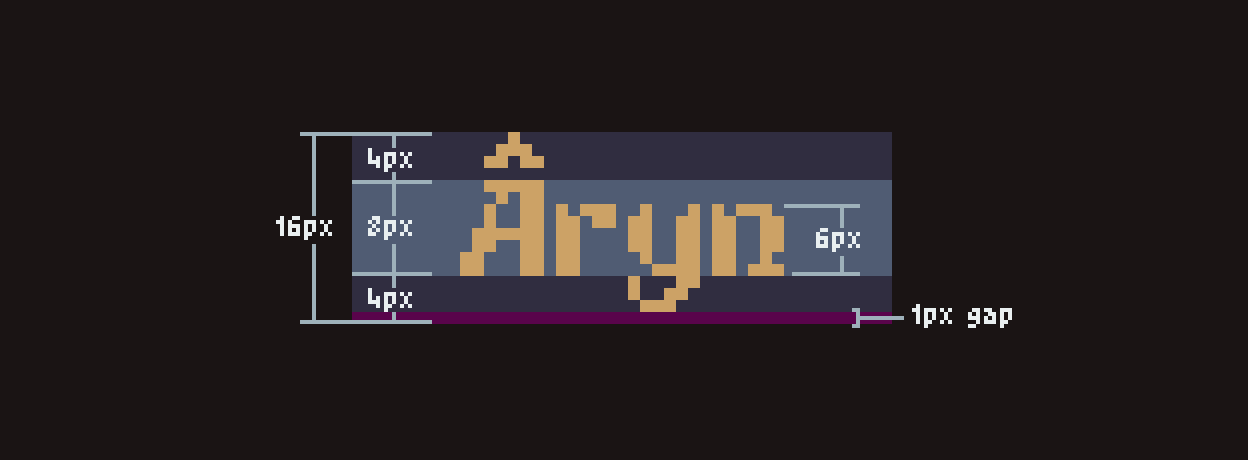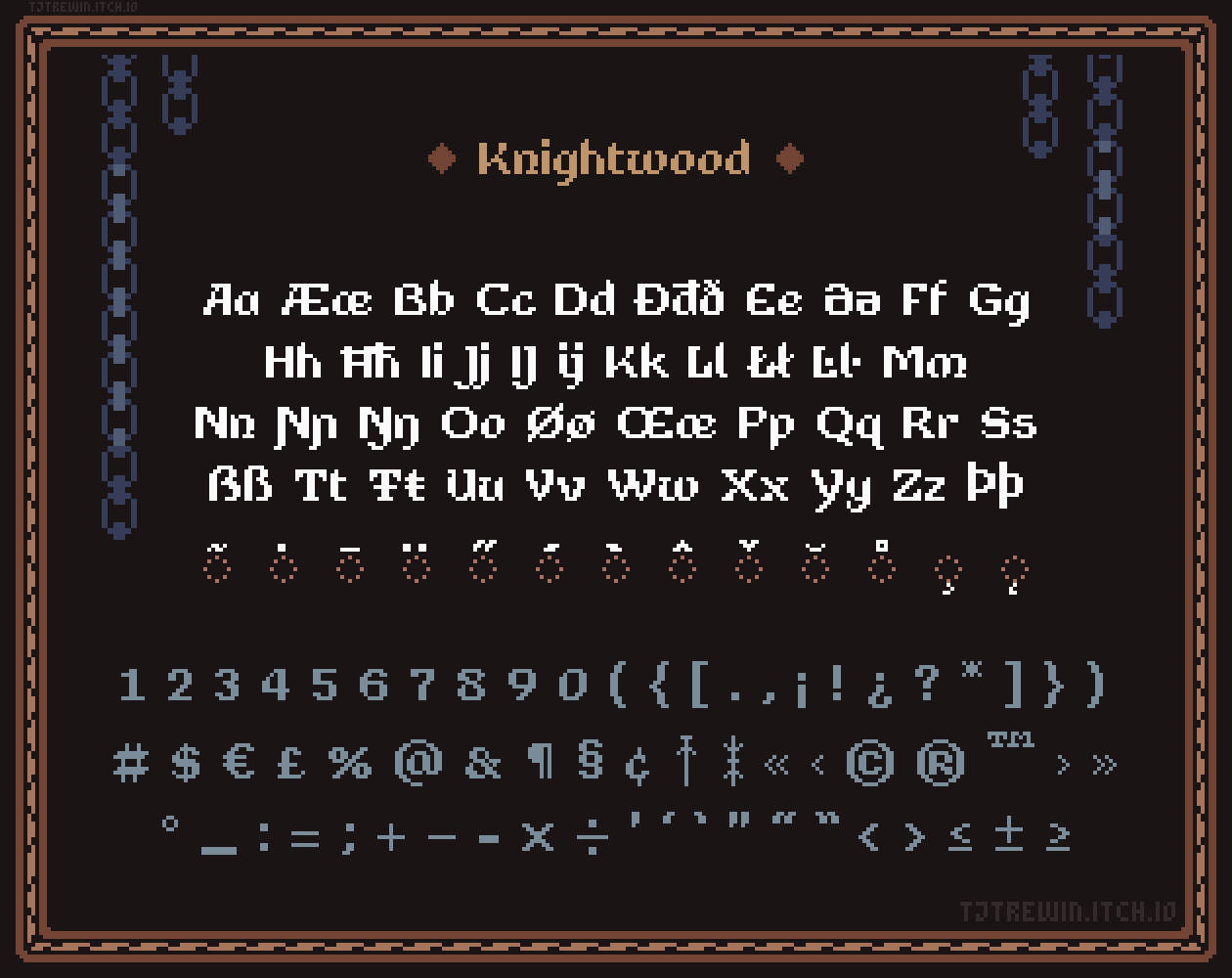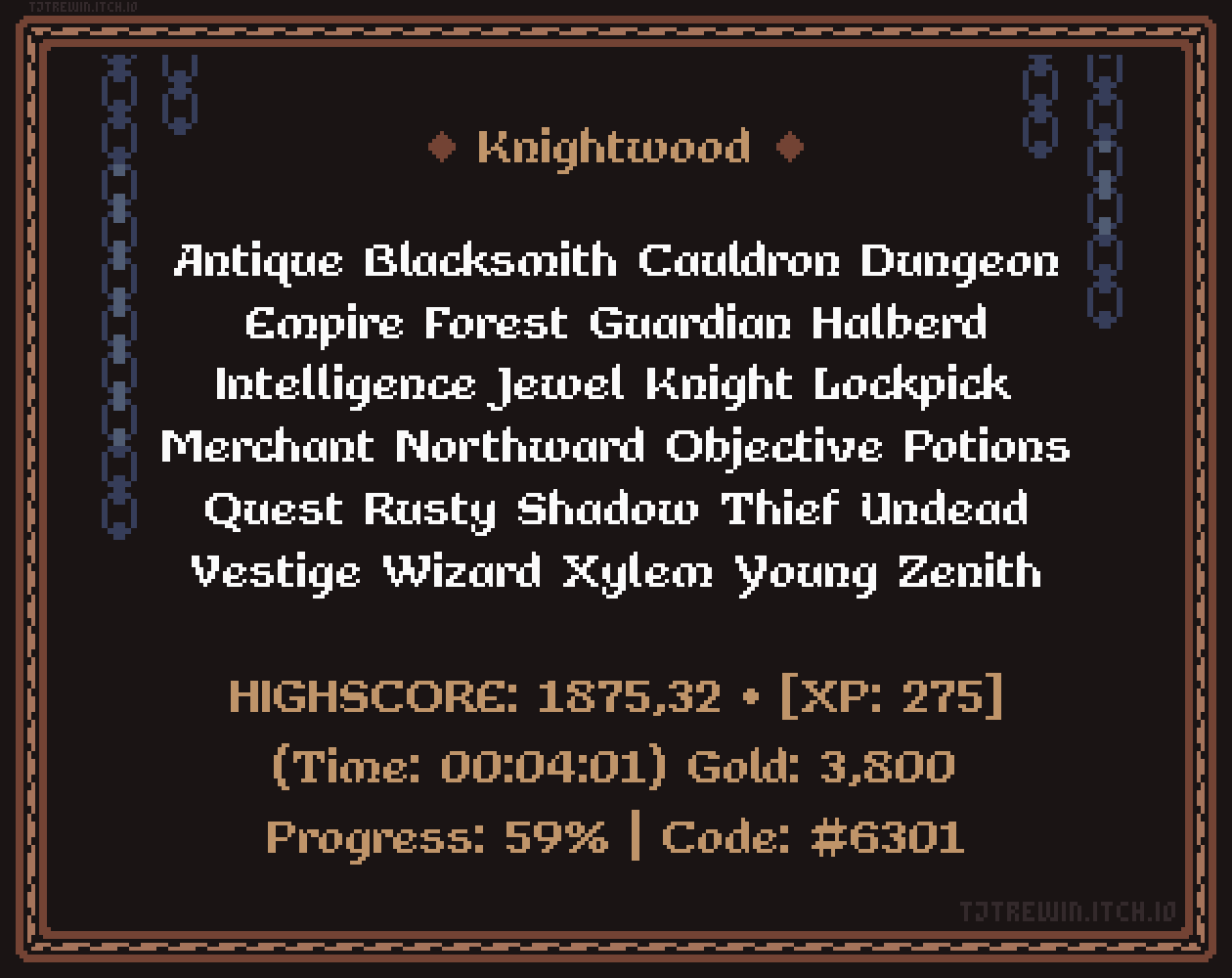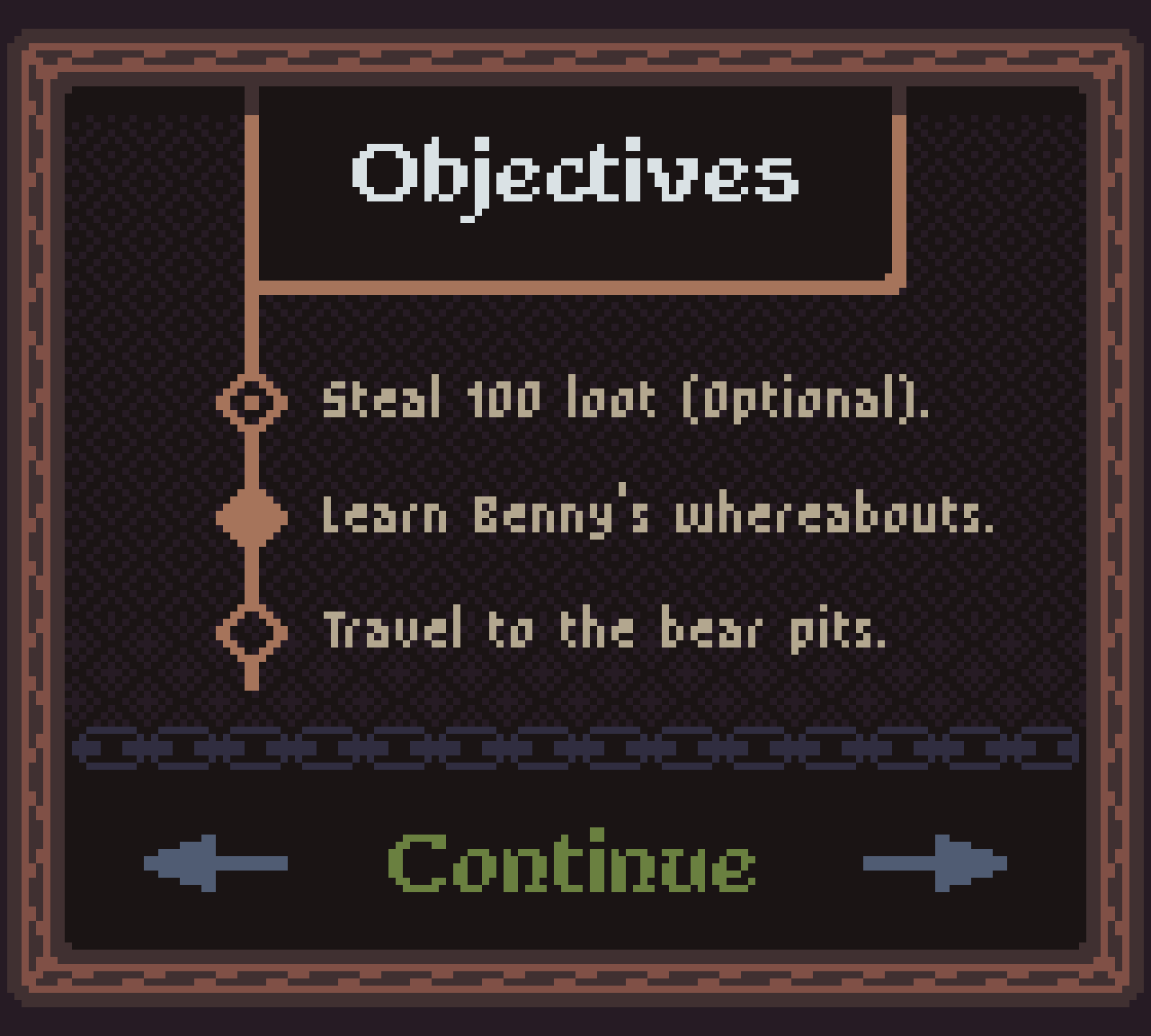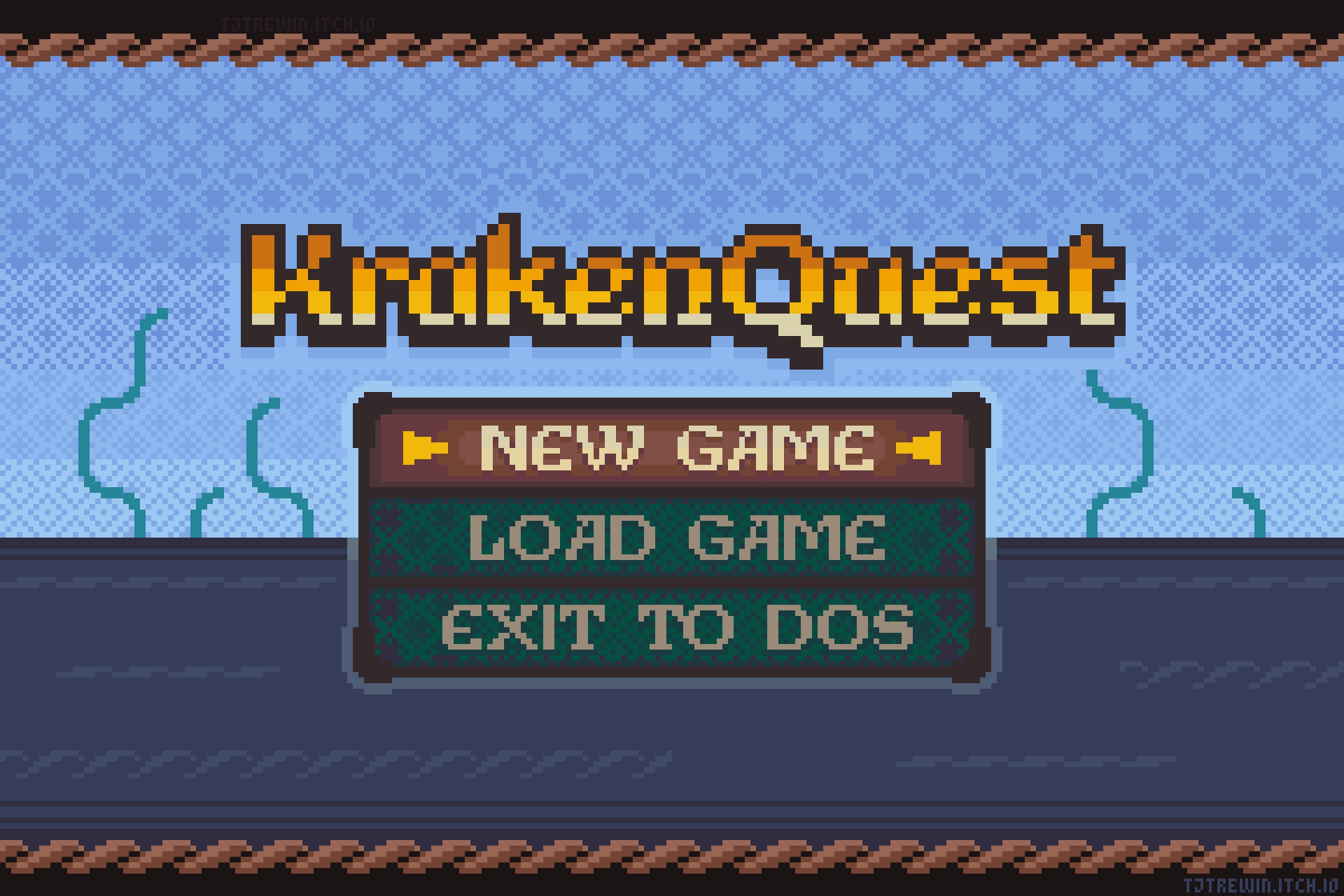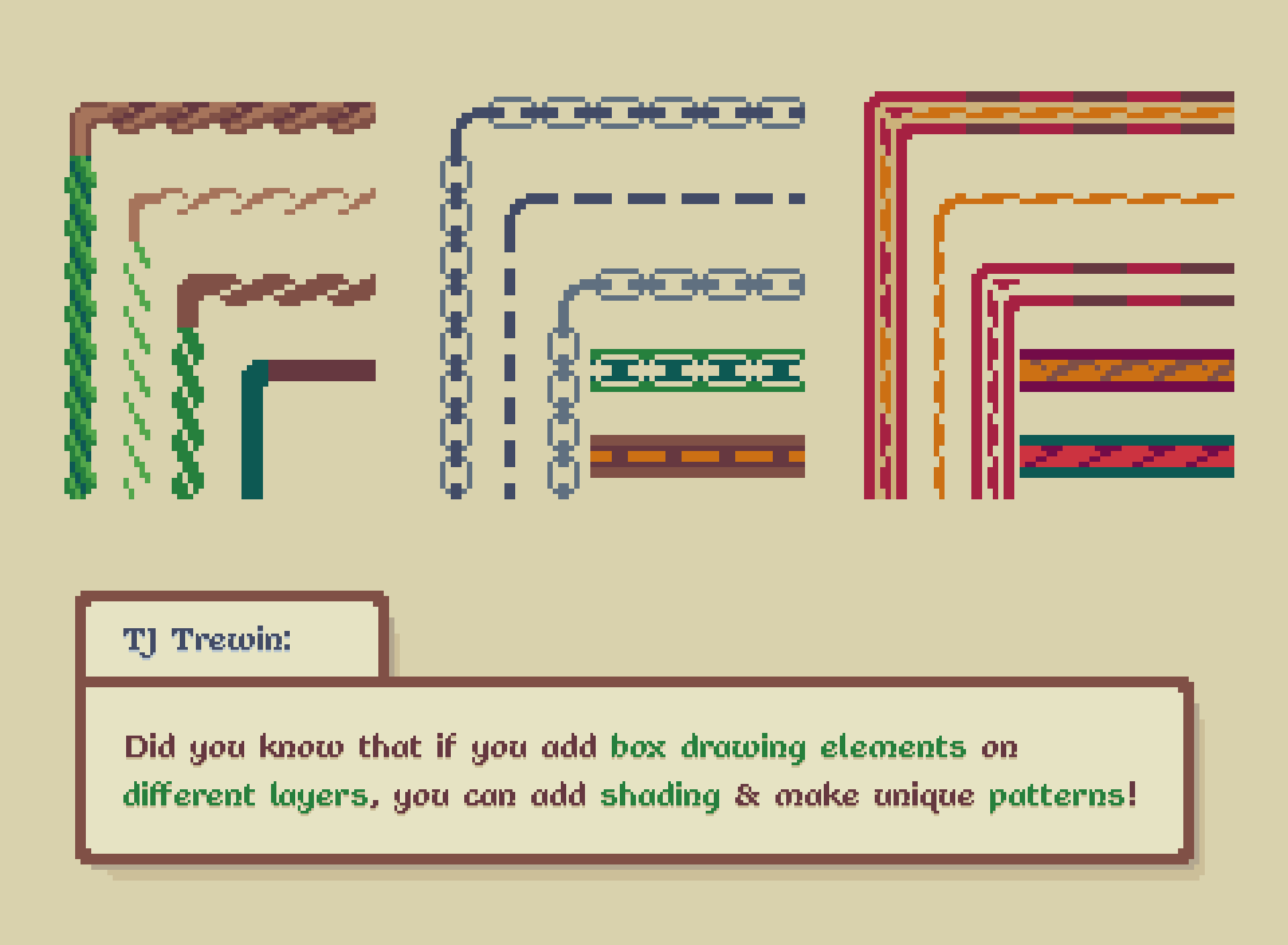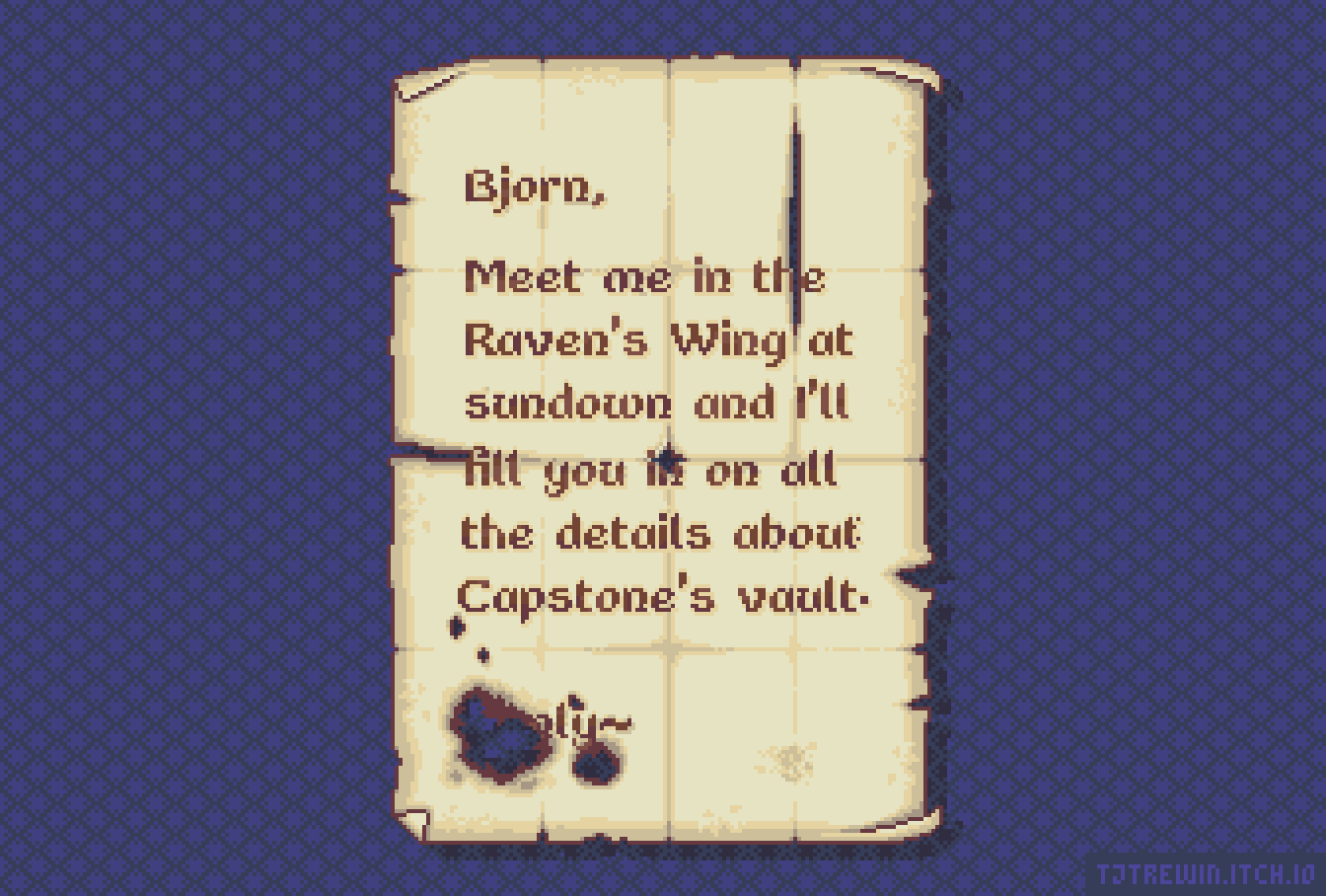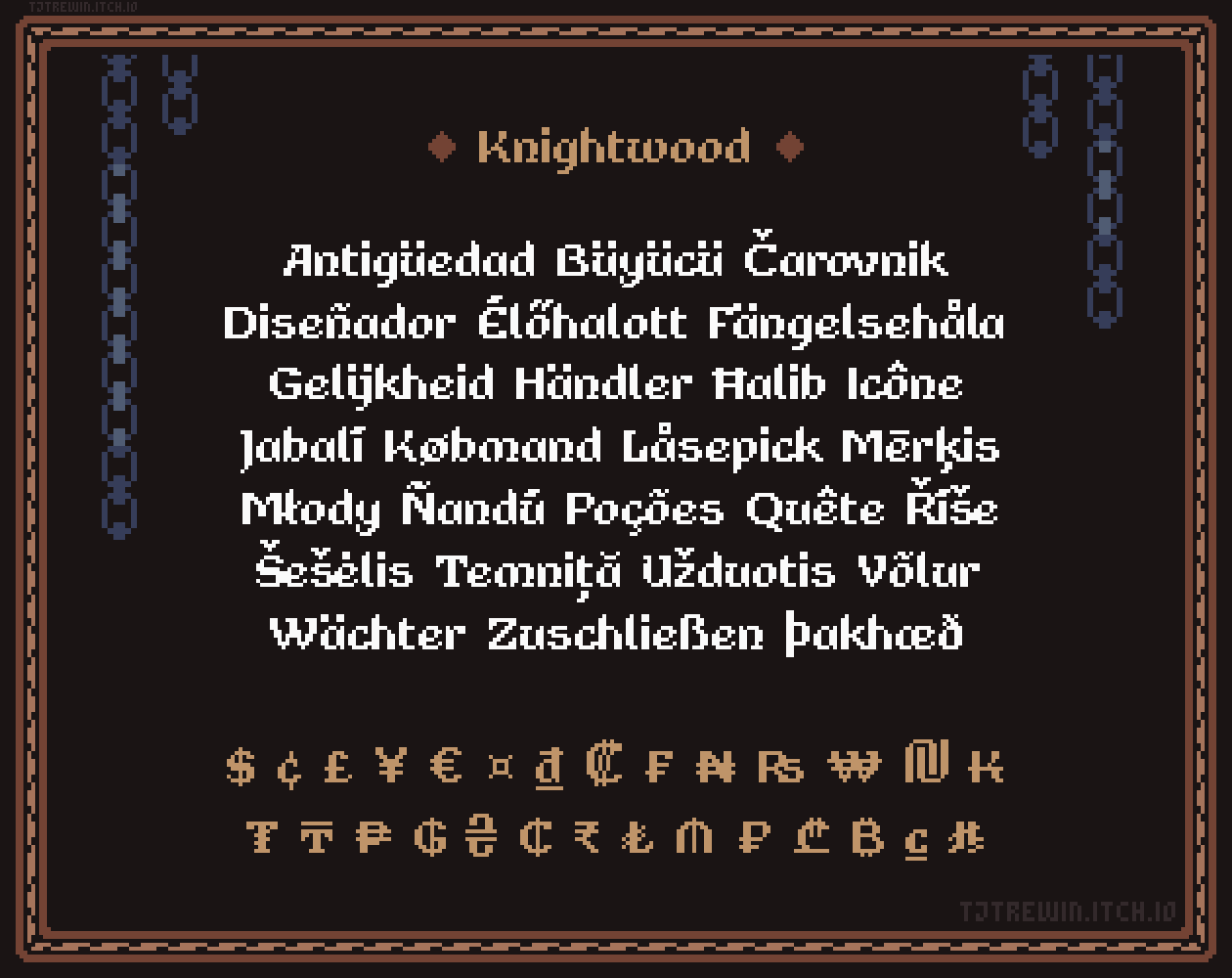
Knightwood Pixel Font
Knightwood is a 16px pixel font ideal for fantasy games, epic adventures, and cosy, nostalgia-filled journeys.
^ try highlighting this sword - it's text!
- Kerning - letter spacing is already balanced for you
- Uppercase letters are 8px tall and are vertically aligned with equal space above and below within a 16px bounding box - it makes perfect padding super easy for UI elements like buttons!
- Ligatures - enable this setting in your tool to join lowercase f characters together (ff, fi, fl, ffi, ffl)
- Box drawing elements and bonus glyphs! Layer them up to make unique patterns and borders for your UI and backgrounds
- This font renders pixel-perfect at 16px and multiples of 16 (16, 32, 48, 64, 80, 96, 112, 128, etc)
- Disable anti-aliasing where possible to keep the edges sharp and clear
- small caps
- Knightwood Light*
- Knightwood Italic*
- Knightwood Monospaced*
- Cyrillic characters
- Greek characters